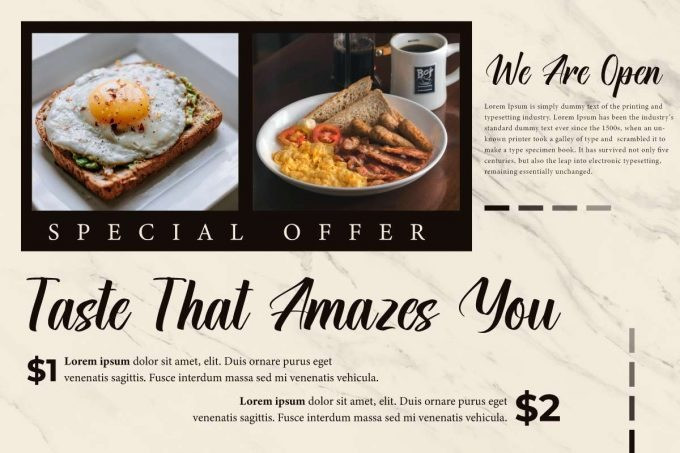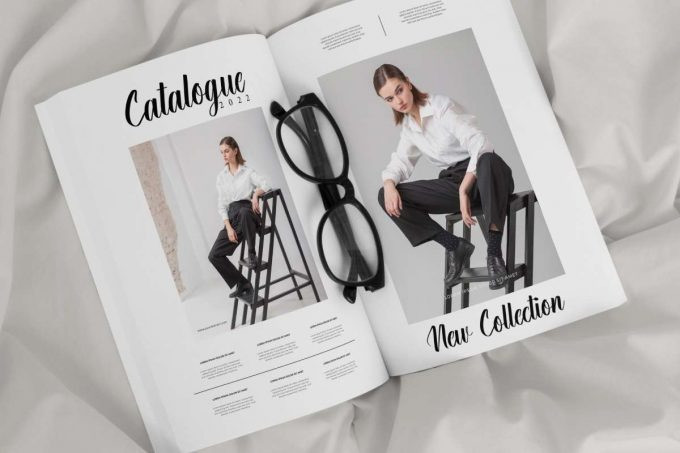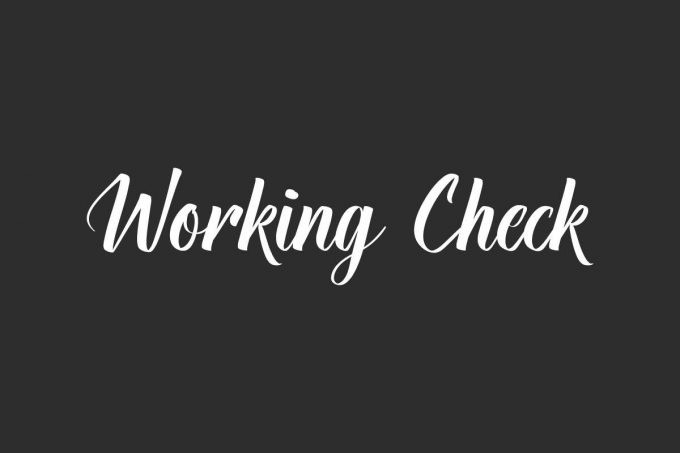
Working Check Font
Working Check Script Font is a stylish calligraphy font with italic bold brush lines as the body and thin lines as the tail so it’s still easy to read. The font will be perfect for fashion brands, beauty product, spa and salon, florist, café, even or wedding organizer, printing, custom design, advertisement, homeware, and more!
Working Check includes full set of Uppercase and Lowercase Basic Characters, Numerals and Punctuation to make your designs perfect and standout. Use this font to beautify your designs, such as business card, invitation, cover, brochure, catalog, label, brand logo, product packaging, web page, quote, etc.